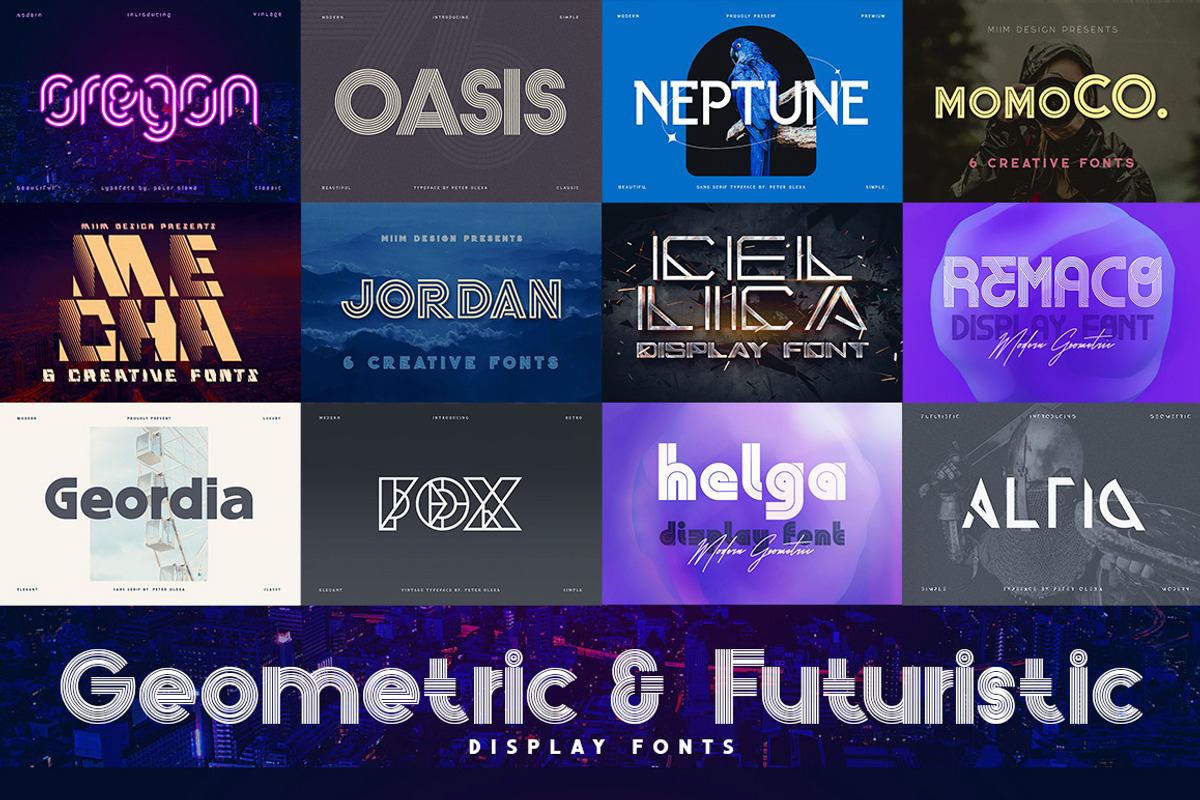
12 Geometric & Futuristic Fonts Free Download
12 Geometric & Futuristic Fonts Free Download is a comprehensive collection of 12 unique typefaces designed with clean lines, sharp angles, and sleek structures, perfect for any modern, digital, or technological design. Whether you're working on a futuristic brand, sci-fi posters, tech company logos, video games, or digital art, this bundle offers the perfect fonts to bring your creative visions to life.
Each font has its own futuristic charm, combining geometric precision with innovative designs, ensuring versatility and impact for both display and functional typography. From bold, in-your-face styles to sleek, minimalistic forms, these fonts provide you with all the tools you need to create cutting-edge designs.